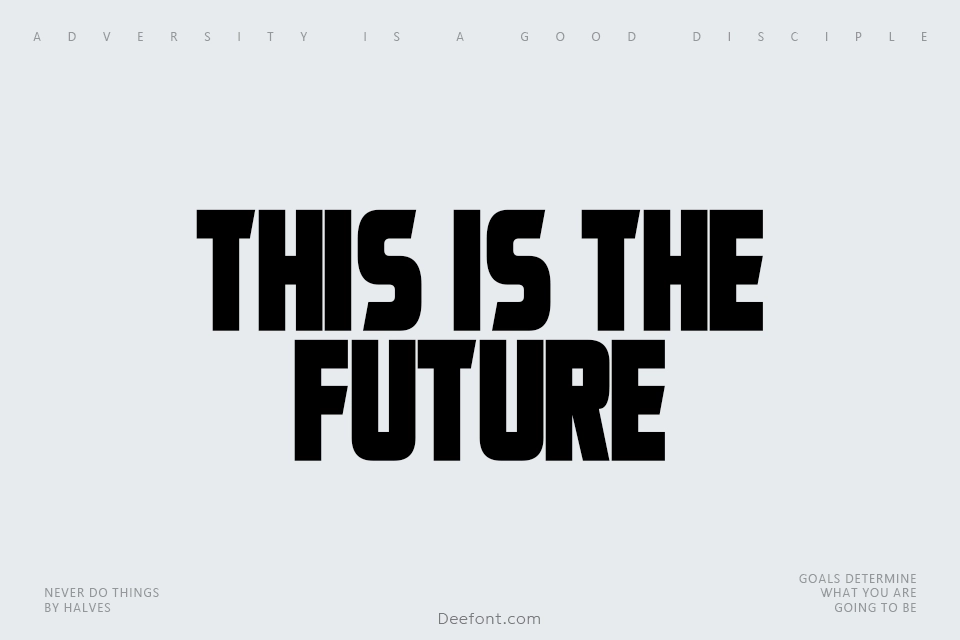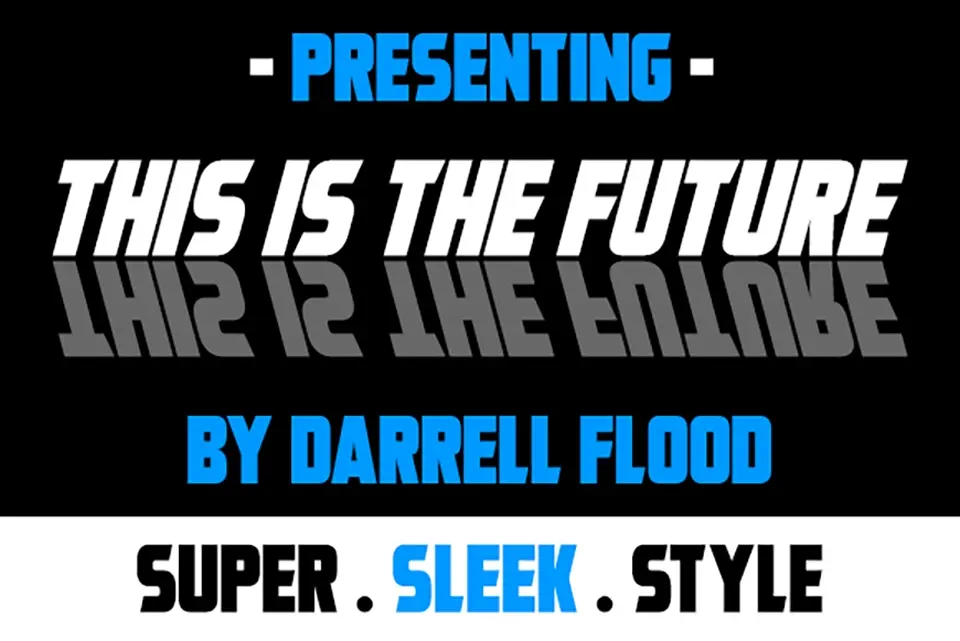
This Is The Future Font
This Is The Future is a futuristic and modern display font created by Darrell Flood. This sci-fi inspired typeface features clean, geometric letterforms with a tech-forward aesthetic that makes it ideal for titles, headlines, and creative projects requiring a cutting-edge feel. With its sleek design and versatile character set, this font brings innovation and contemporary style to digital and print media.